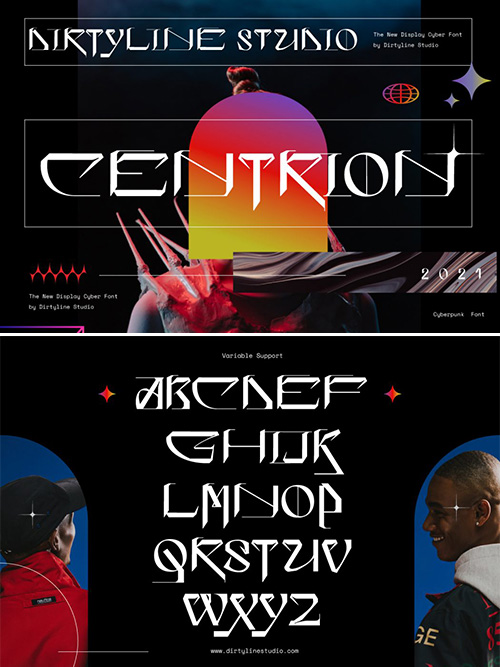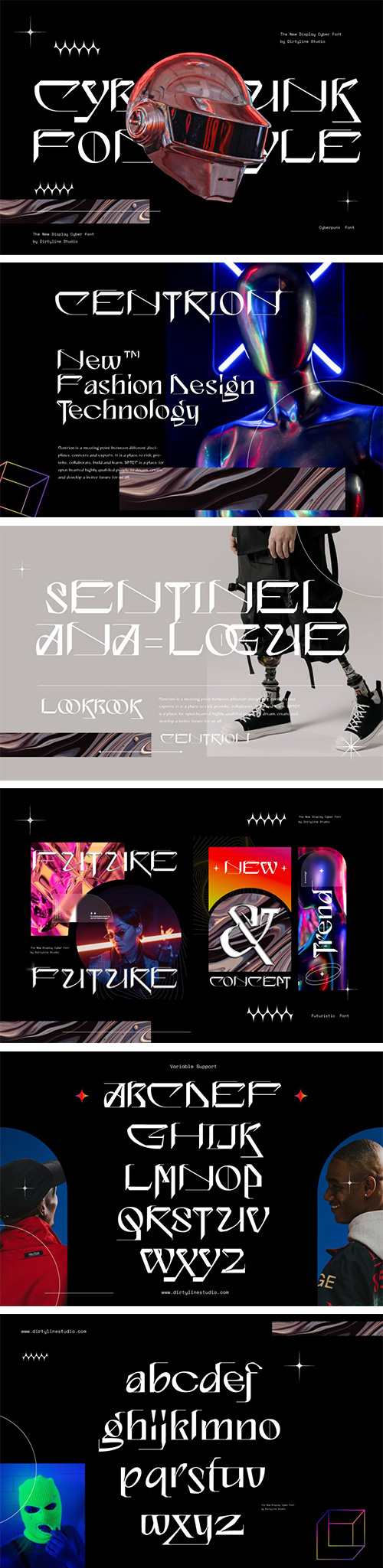
Centrion - Dual Static + Variable Font Family
- Centrion is the new Futurism Typeface. inspired by visual of futuristic and techno-based design from the latest and upcoming trends. Perfectly fit for your gaming logo, branding, techno branding, digital assets, game design, UI, UX, synthwave, vaporwave, futuristic poster, contemporary typographic design, techwear apparel, vehicles design, prototype concept, anything you need a boost to the future.